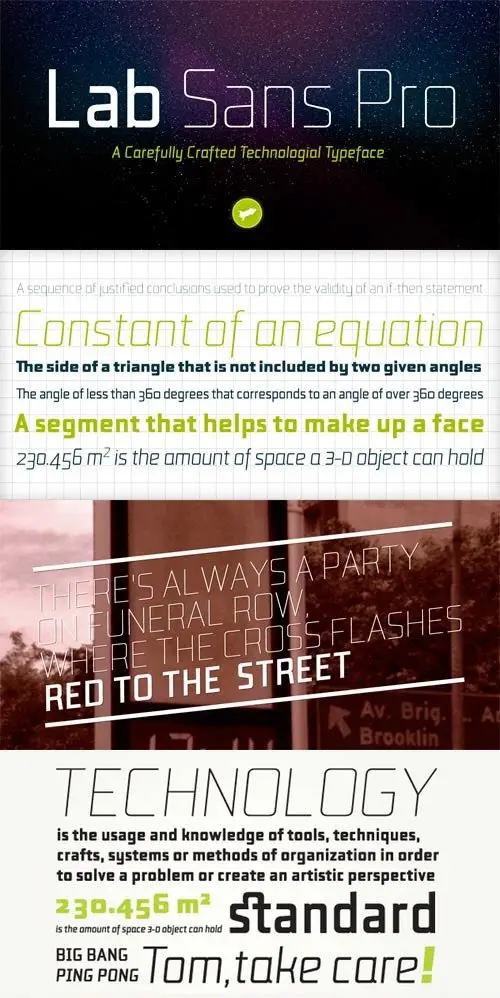
Lab Sans Pro is a geometric sans-serif typeface with a technological and minimalist look and is suitable for use in large sizes. It has eight versatile weights, (from Thin to Black) including true italics for each one, and a wide range of stylish alternate characters to improve its use in different graphic contexts. The name of this typeface was inspired by an experiment, mixing a structure with calligraphic influences and completely geometrical and structured drawings. Lab Sans Pro has a wide range of OpenType® features such as: small caps, old style/titling and small caps figures, fractions, superior and inferior scripts, scientific components and ligatures. Versatile but original, precise but lively, Lab Sans Pro is a carefully crafted technological typeface designed by Tiponautas.